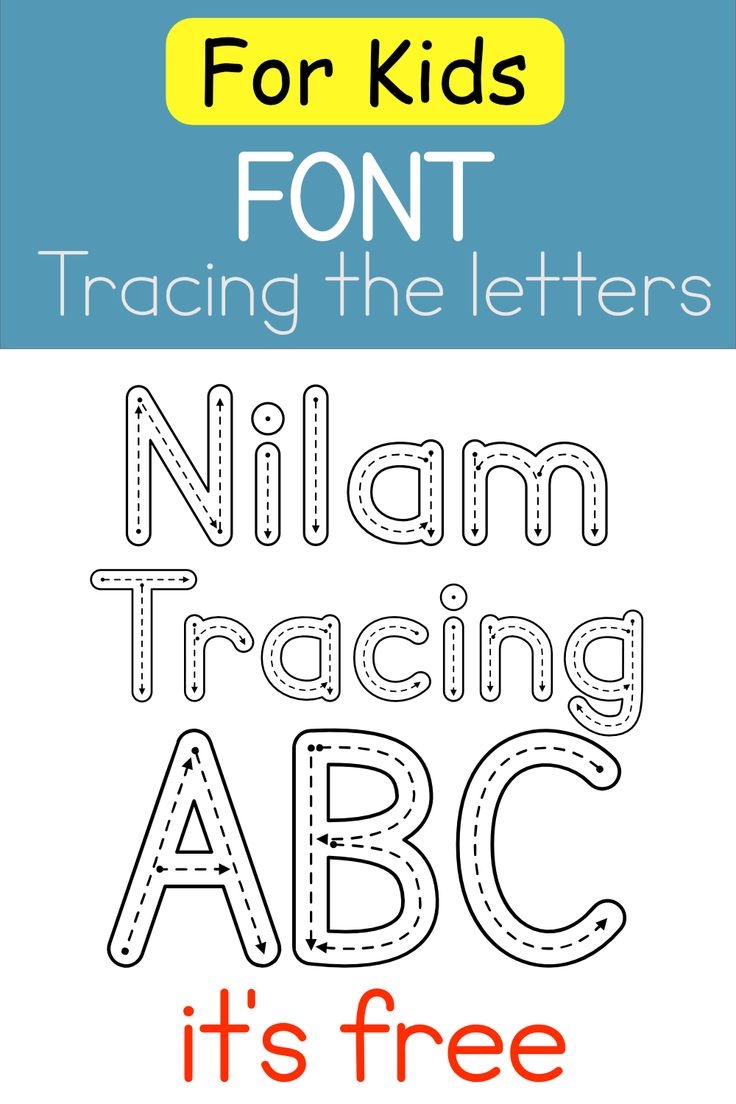
Free Tracing Fonts
There are numerous sources online where you can discover free tracing fonts. These fonts are designed to help users practice handwriting or add a unique flair to their designs. They often mimic handwritten styles, making them versatile for various applications.
When selecting a tracing font, consider its readability. A good tracing font should be easy to follow while still being visually appealing. This balance ensures that your audience can engage with your content effortlessly.
Incorporating free tracing fonts into your projects can enhance creativity and engagement. They not only serve practical purposes but also add a personal touch that resonates with viewers.
Exploring free tracing fonts opens up a world of creative possibilities. With so many options available, you’re sure to find the perfect font that complements your design needs beautifully.